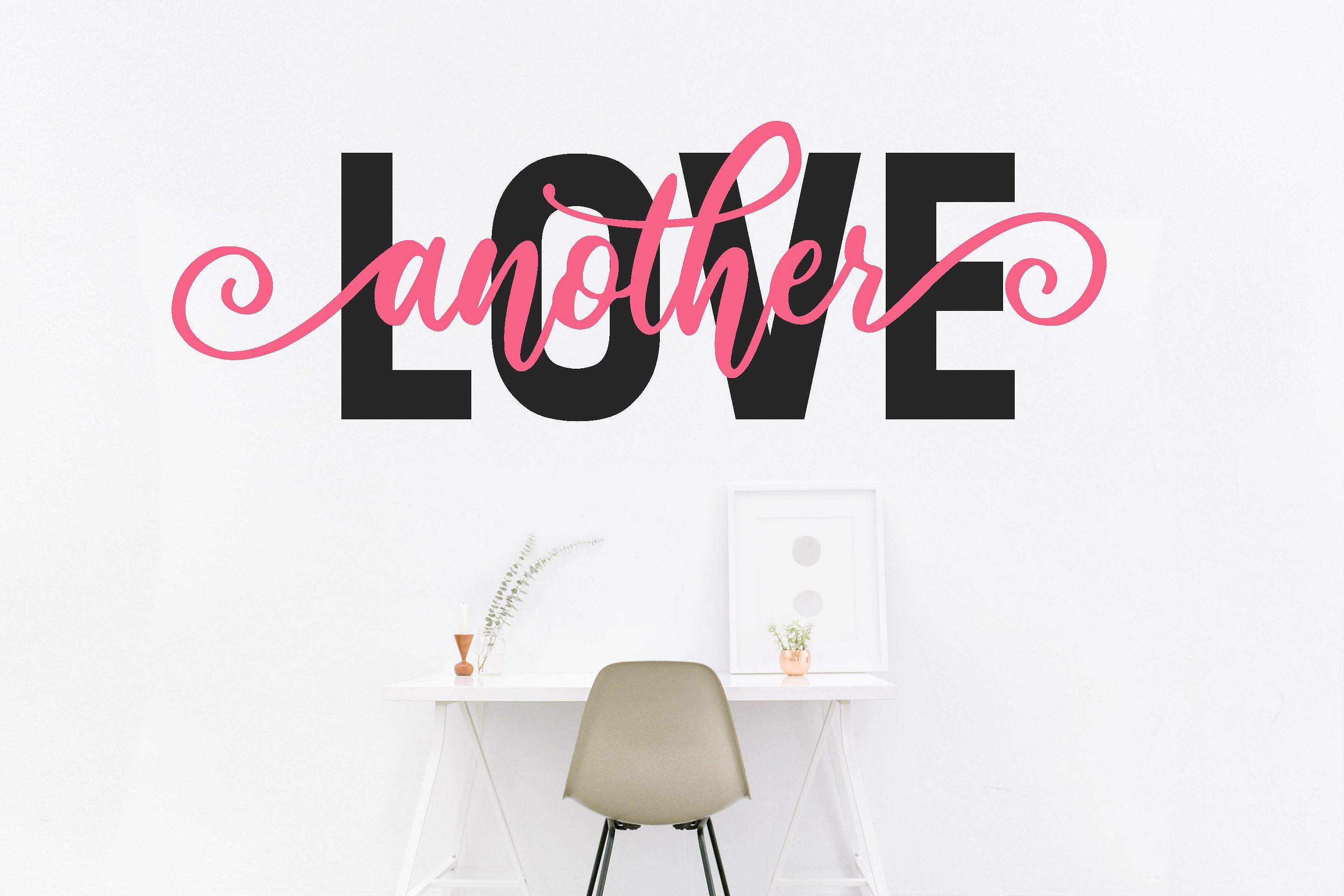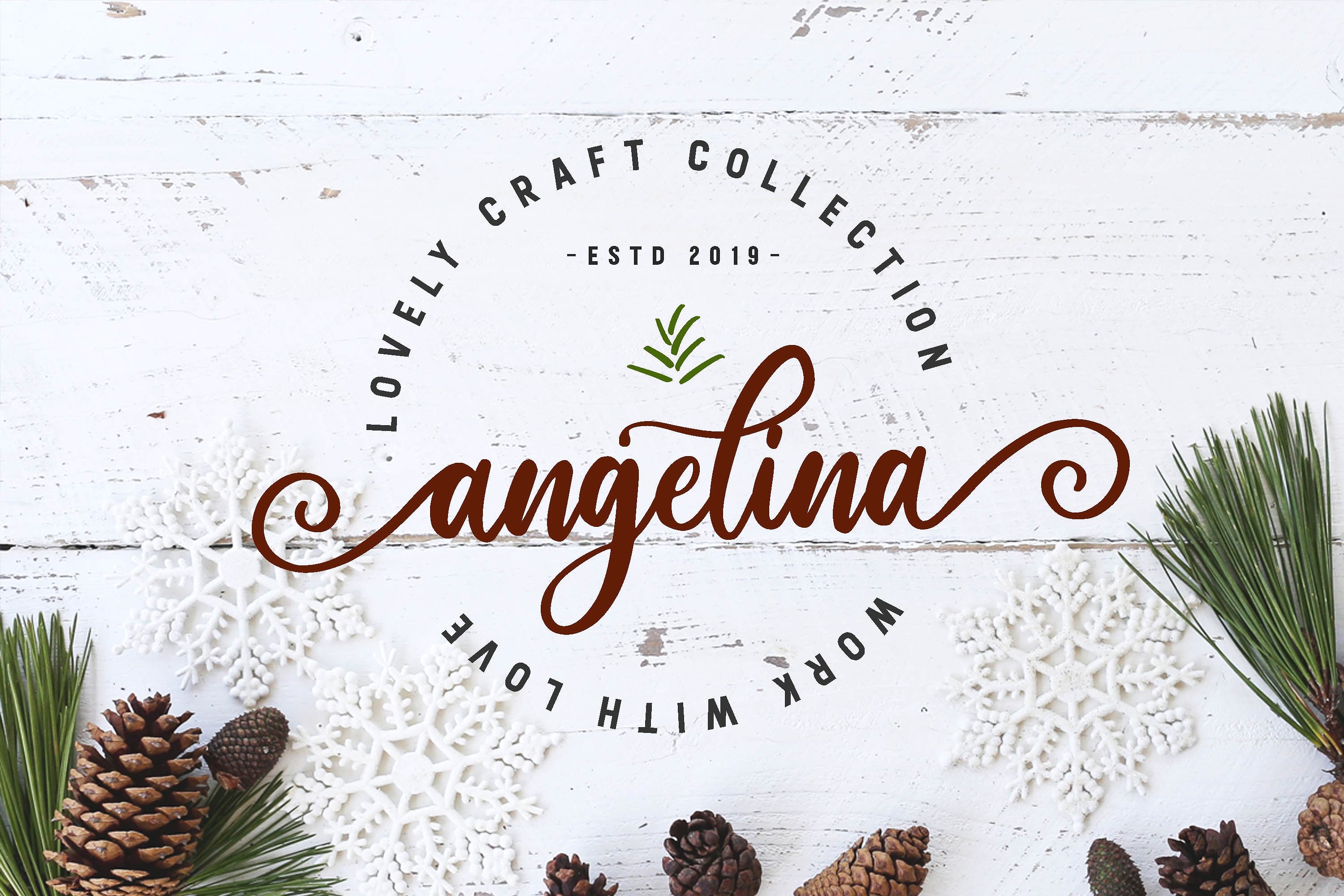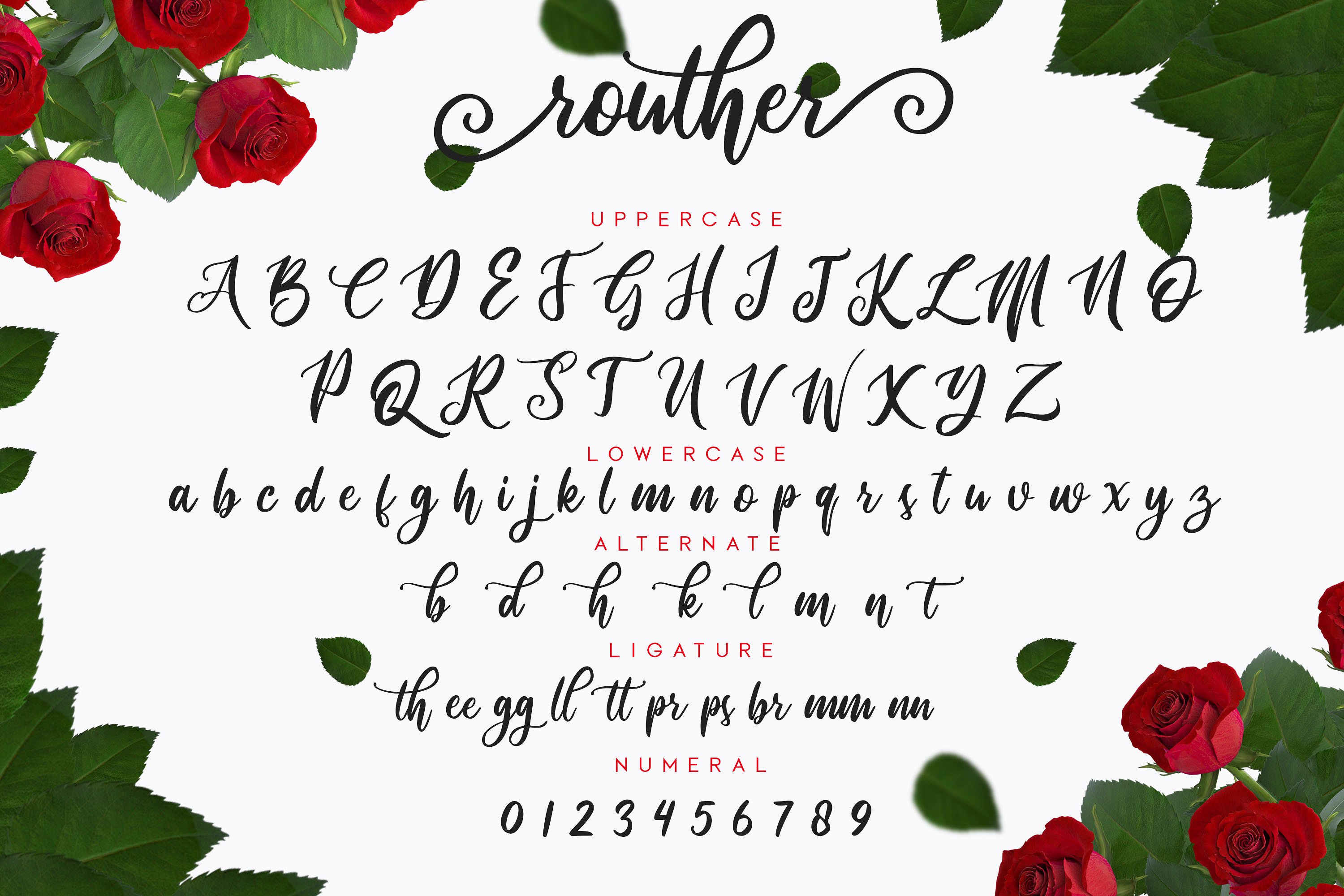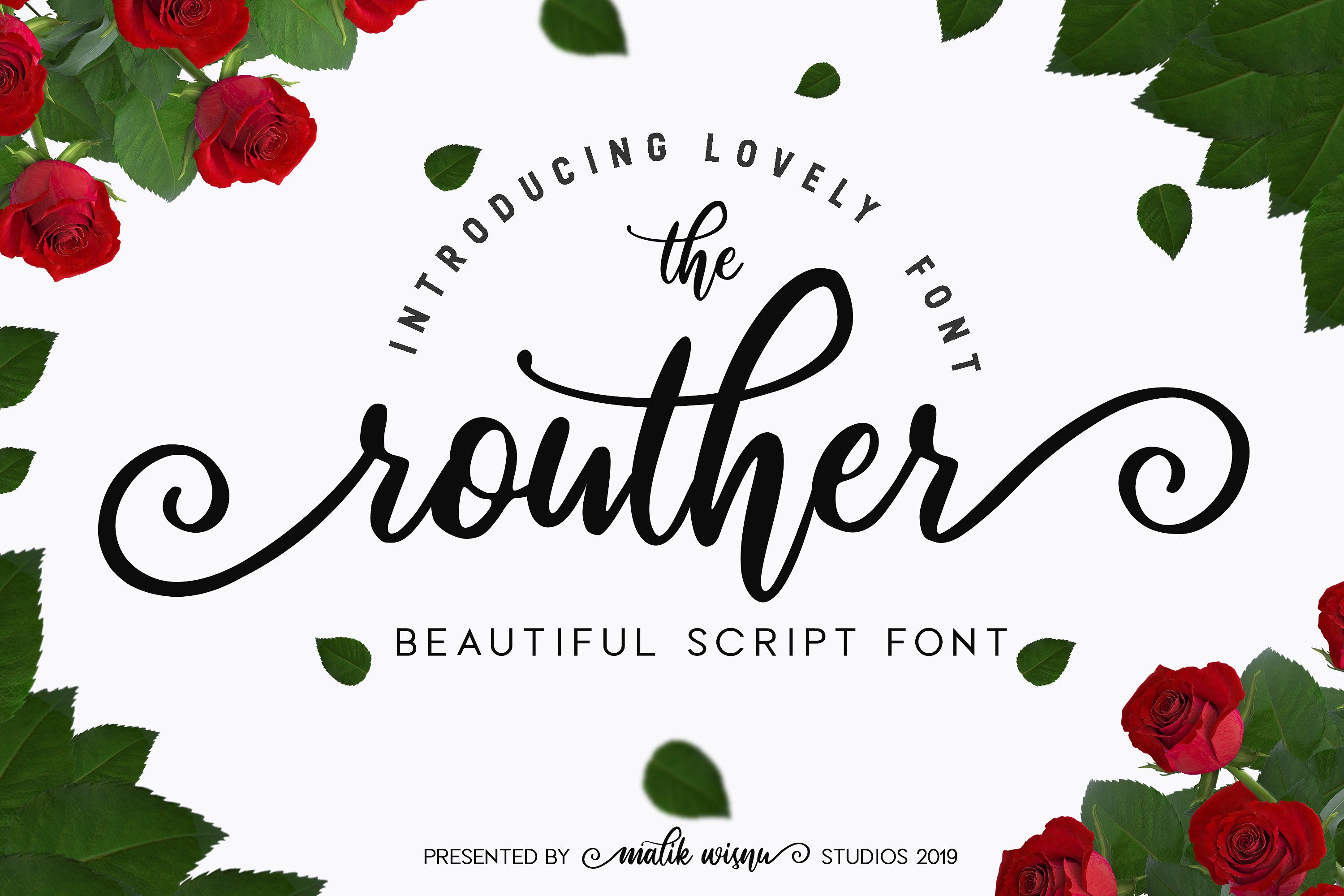
Routher Script Font
This is an original hand writing font, perfect for give your design an authentic touch. Introducing Routher Font. Routher Script Font with Inspired by lovely and beautiful branded stuffs make this font looks modern and awesome in many way to your latest project. routher is perfect for logos & branding, photography, invitation, watermark, advertisements,product designs, stationery, wedding designs,label ,product packaging, special events or anything that need special taste.